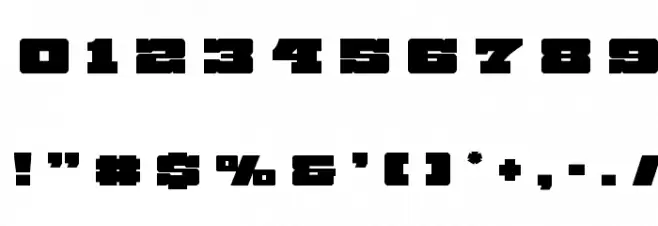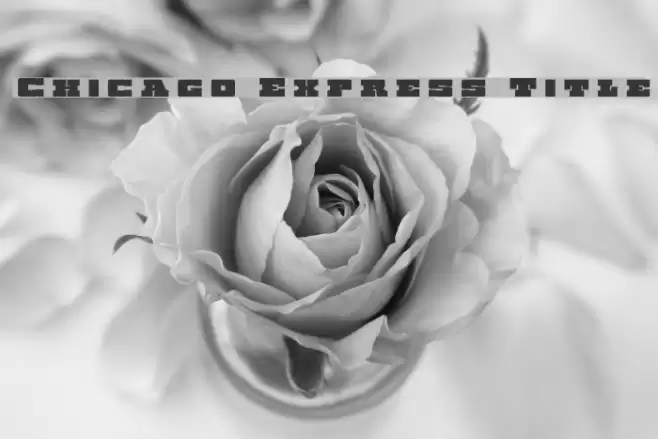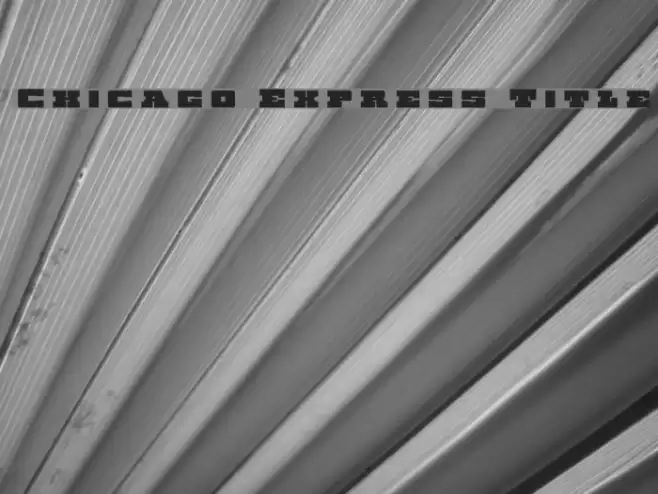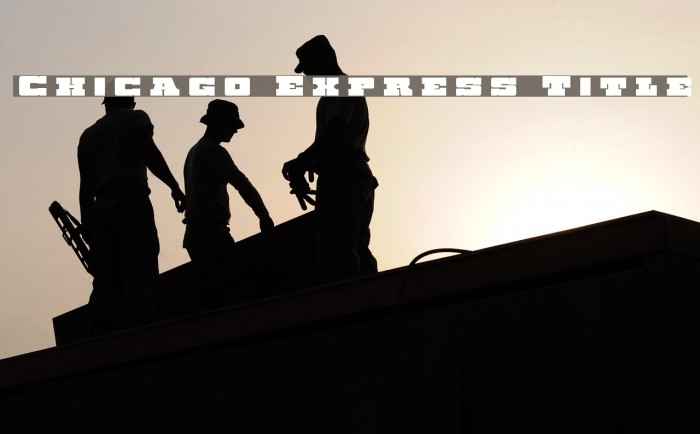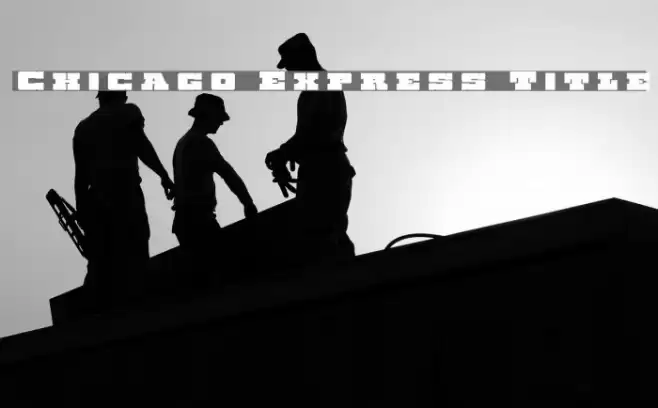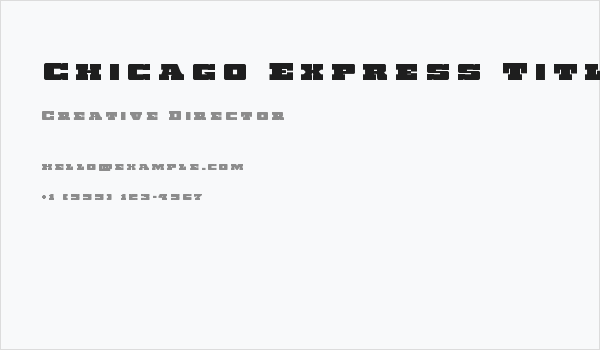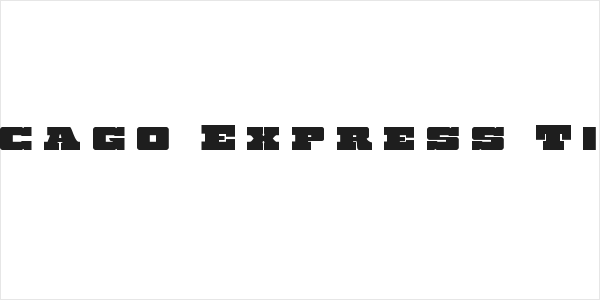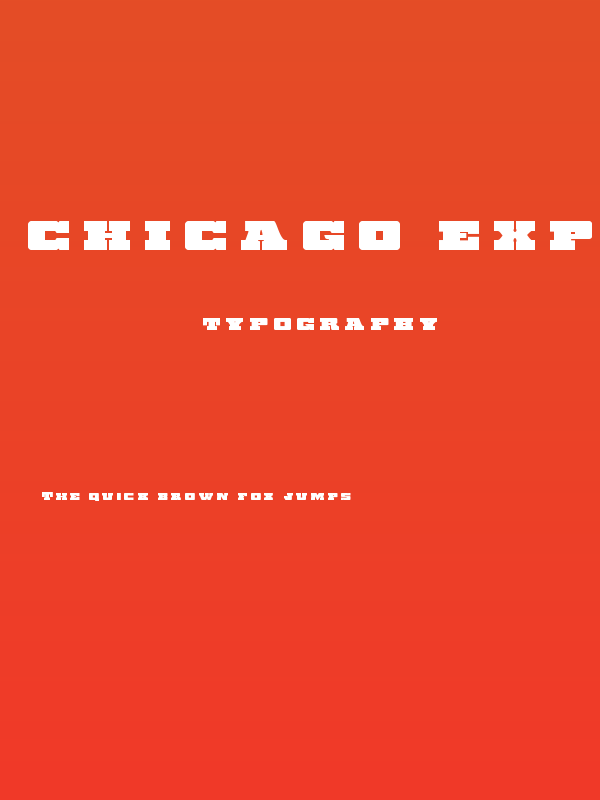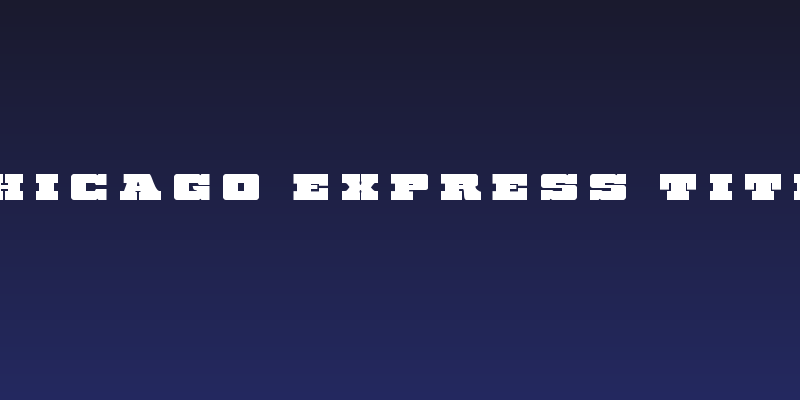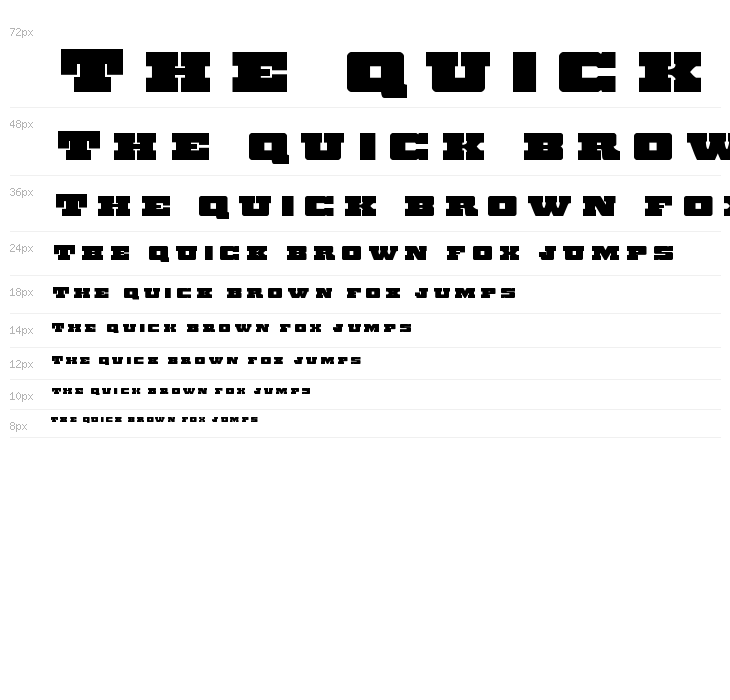
Chicago Express Title Font
Chicago Express Title Description
This font features a bold, impactful design with strong geometric shapes and a solid presence. The characters are blocky and robust, with a uniform thickness that conveys strength and stability. The uppercase letters are particularly striking, with sharp angles and a consistent height that create a cohesive look. The numbers and special characters maintain this bold style, ensuring readability and visual impact. This font is ideal for making a statement, whether in headlines, posters, or branding materials. Its boldness and clarity make it suitable for both digital and print media, capturing attention with its commanding presence.
| Proposed Projects | Ideal for headlines, posters, branding, and any project requiring a strong visual impact. |